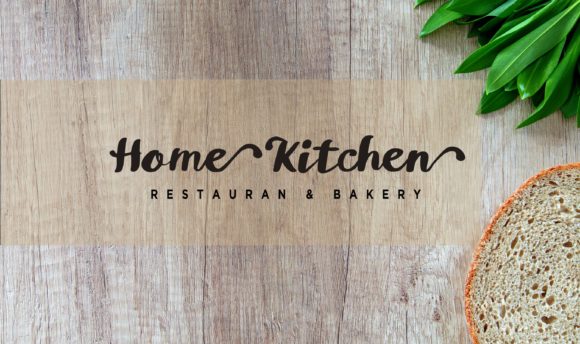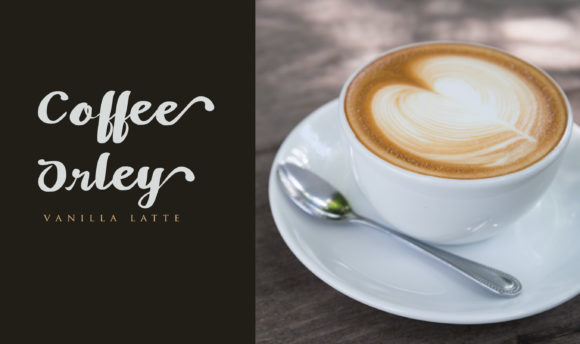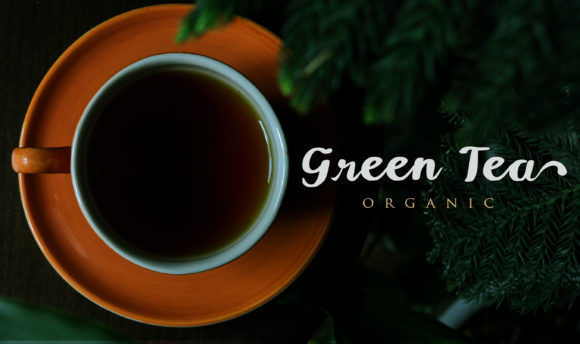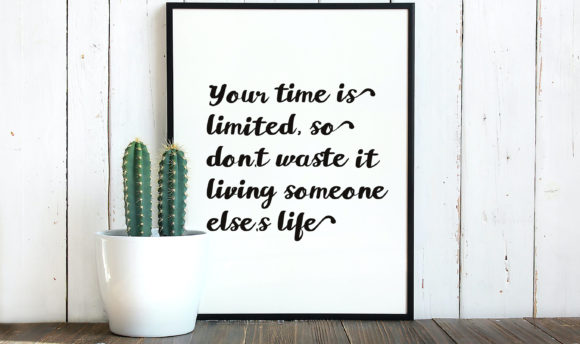
Origami Font
About Origami Font
Origami is an elegant and modern handwritten font. This font can be applied to your products, including its name from the shop . , weddings, products, clothing, and
company logo as well as social media posts and others.